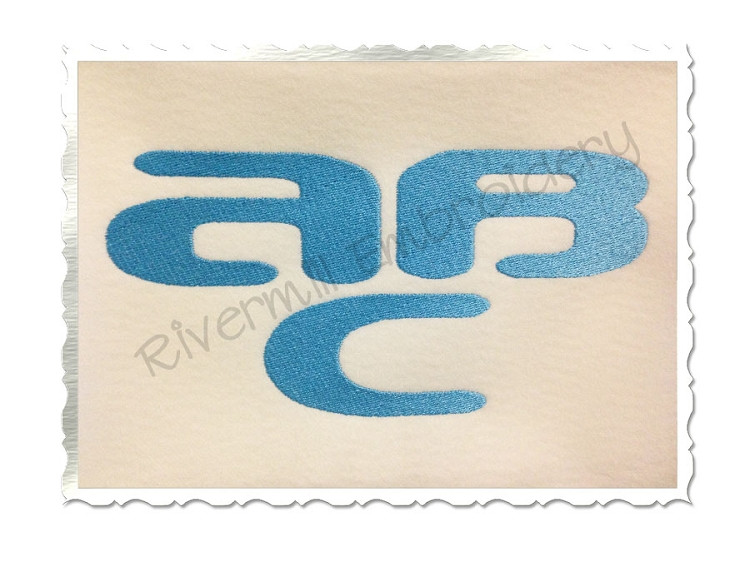
Beware Machine Embroidery Font Alphabet
This set comes with upper case letters in 3 sizes - 1", 2", and 3". These letters are really wide. All of the 1" letters and most of the 2" letters will work in a 4x4 hoop, but the 3" letters need at least a 5x7.